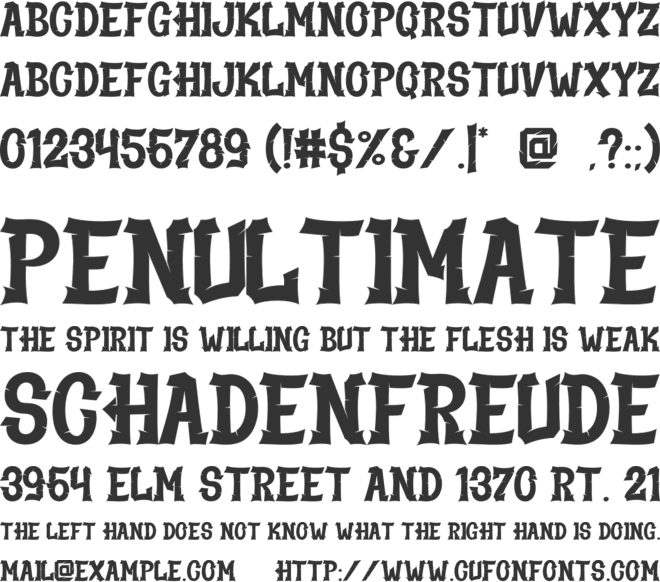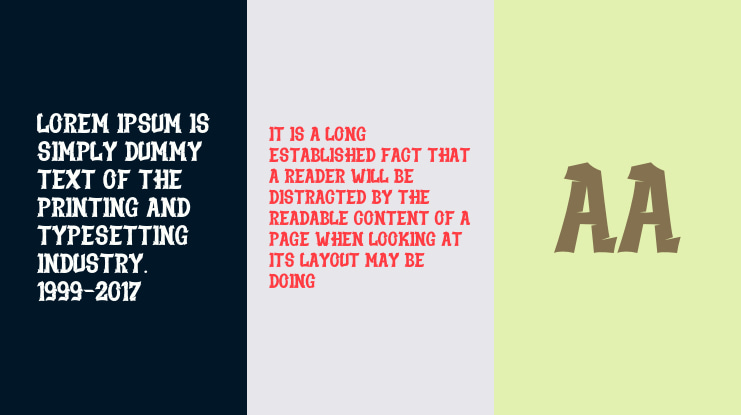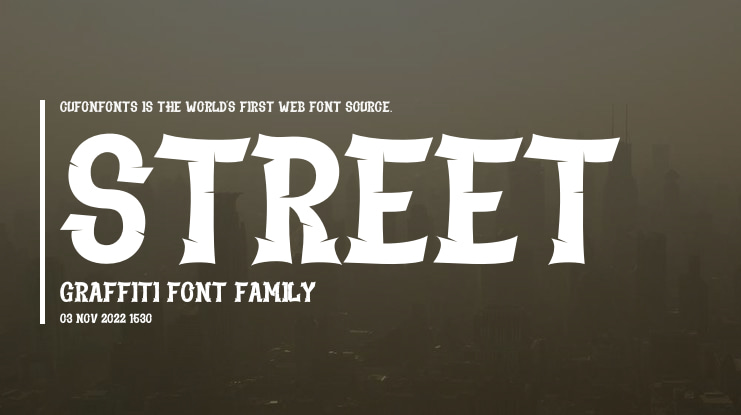
Street Graffiti Font
Street Graffiti is a bold, chunky-lettered display font that playfully captures the iconic style and look of graffiti. This font is perfect for a variety of designs, including t-shirts, sportswear, logos, advertisements, clothing, and more. Incorporate this font into your urban and casual creations, and you'll be delighted with the results.